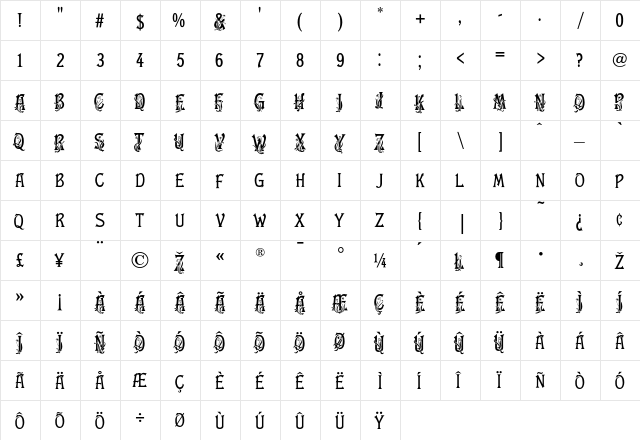
FloralLatin Normal
Design Context for FloralLatin Typeface
FloralLatin is a composed and adaptable typeface that performs quietly and consistently across a wide range of design contexts.